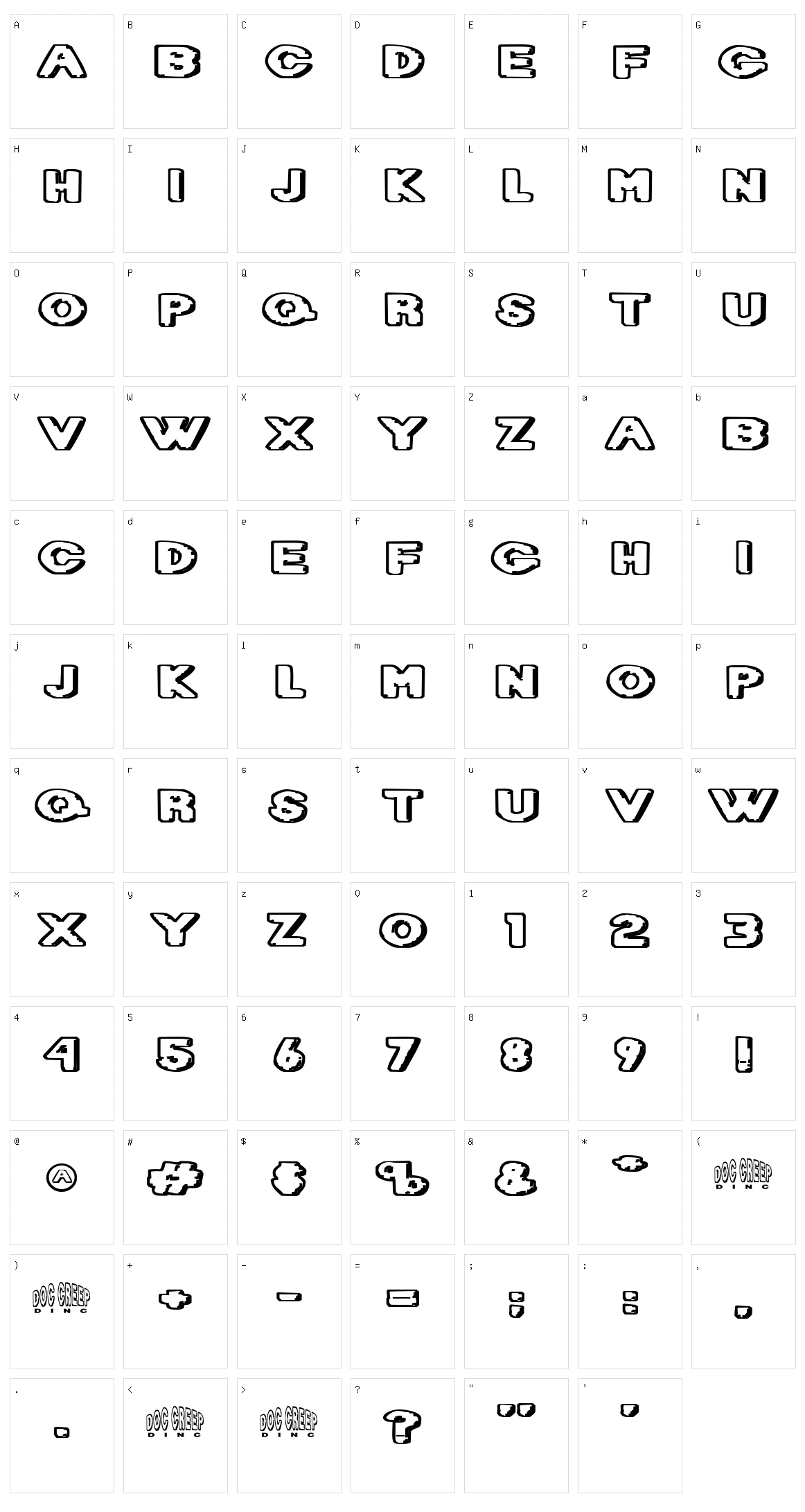
DR. CREEP is a free introductory font from dincTYPE.
DR. CREEP is a display face which contains all
upper case letters, numbers, and essential punctuation.
It is kerned for your enjoyment and looks best when
used in applications which support kerning.
Another variation of DR. CREEP, Diet DR. CREEP is also